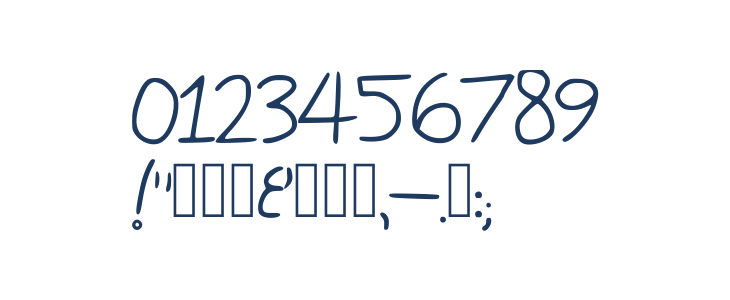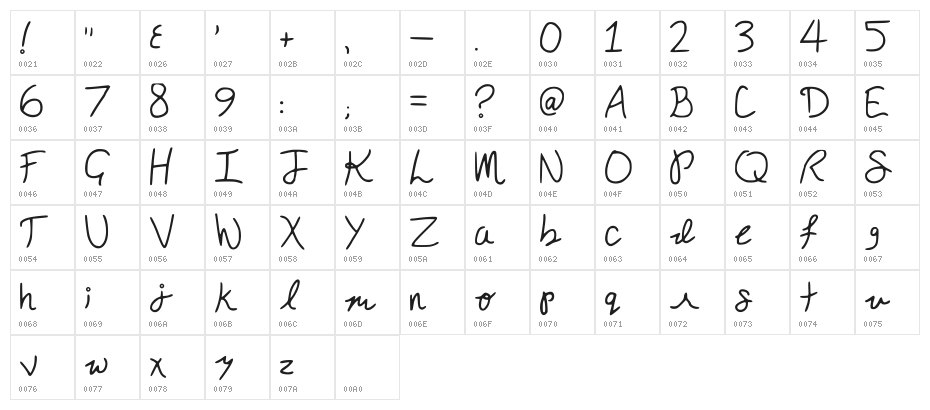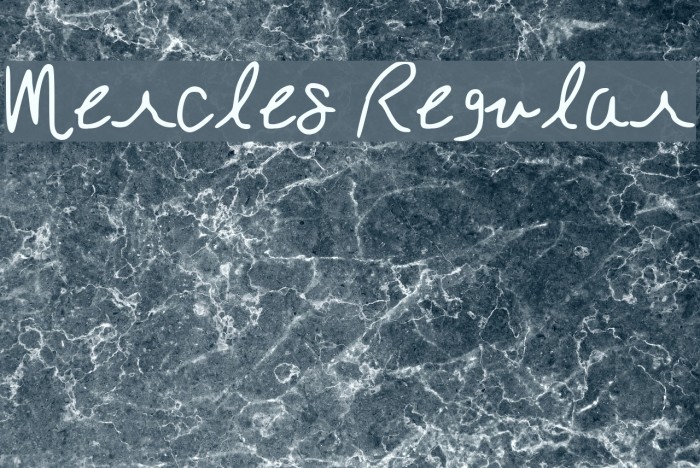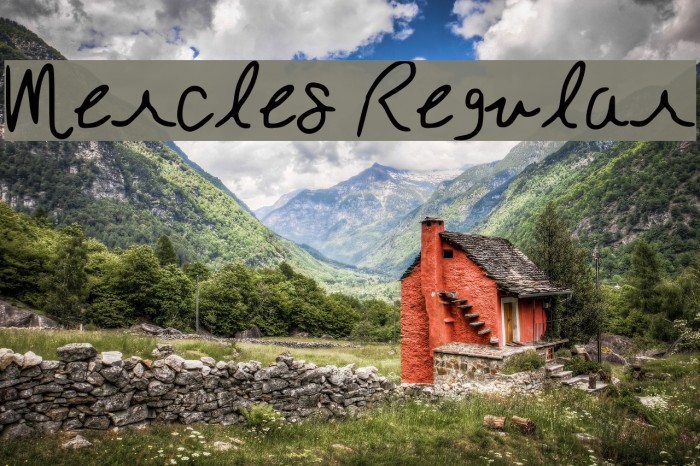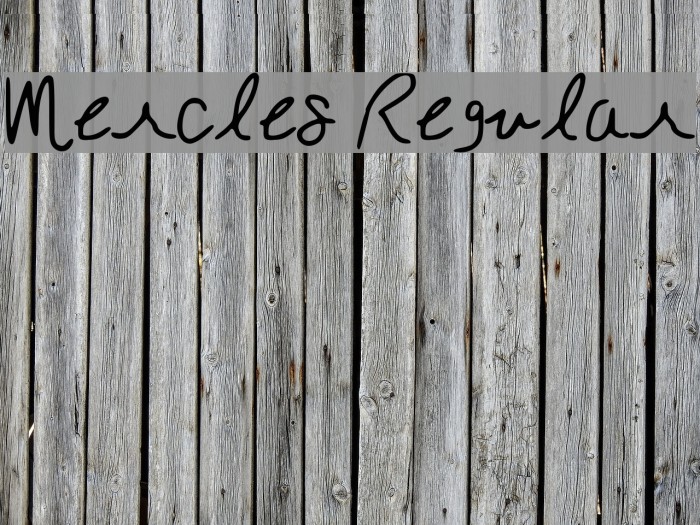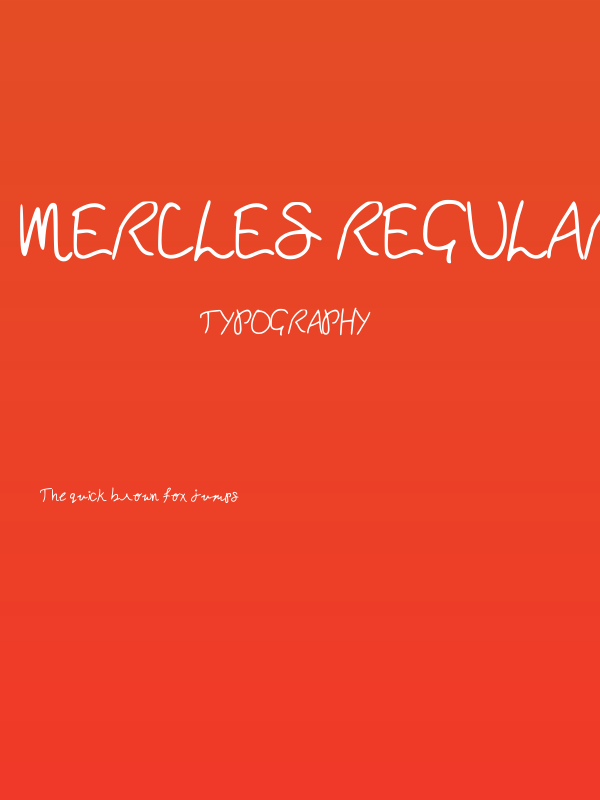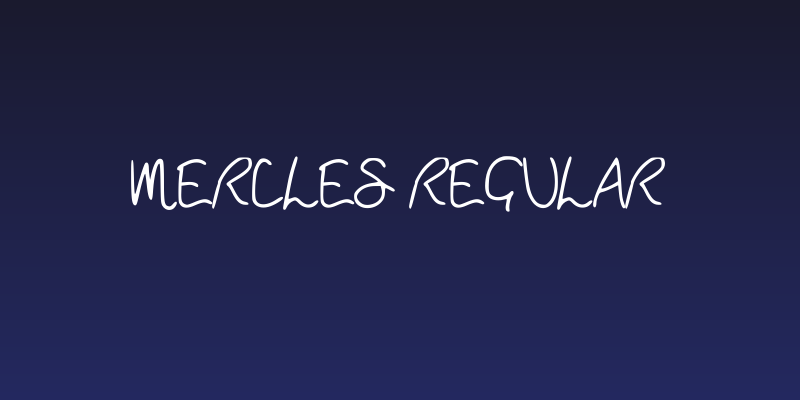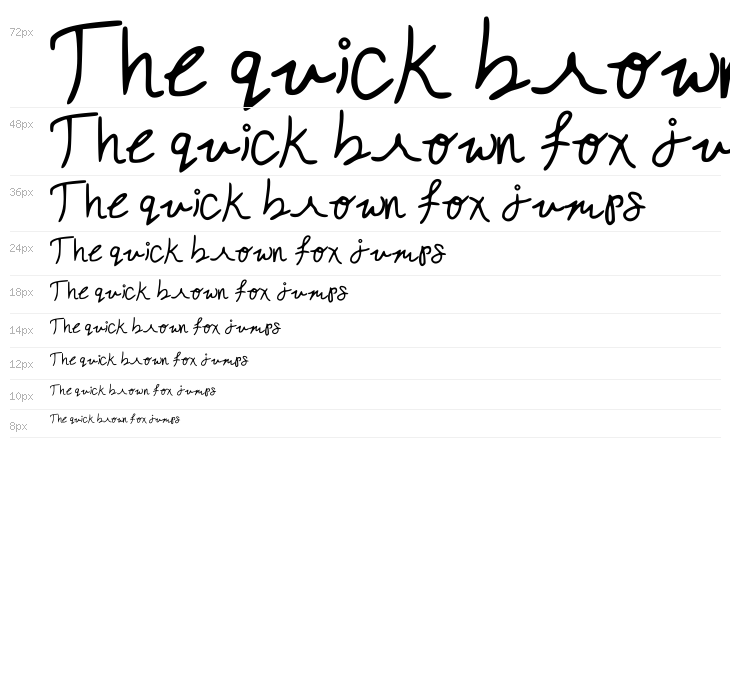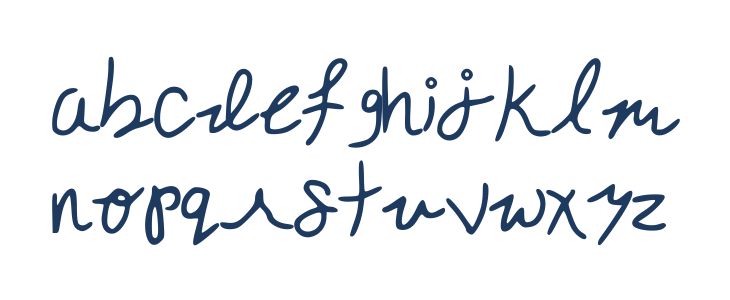
Mercles Regular Font
Mercles Regular Description
This font features a playful and casual handwritten style, characterized by its fluid and slightly irregular strokes. The uppercase letters are bold and expressive, with a whimsical flair that adds personality to the text. The lowercase letters maintain a consistent flow, enhancing readability while preserving the font's unique charm. Numbers are clear and distinct, making them suitable for various applications. Special characters are creatively designed, complementing the overall aesthetic. This font is ideal for projects that require a personal touch, such as invitations, greeting cards, or creative branding.
| Proposed Projects | Ideal for invitations, greeting cards, creative branding, and personal projects. |